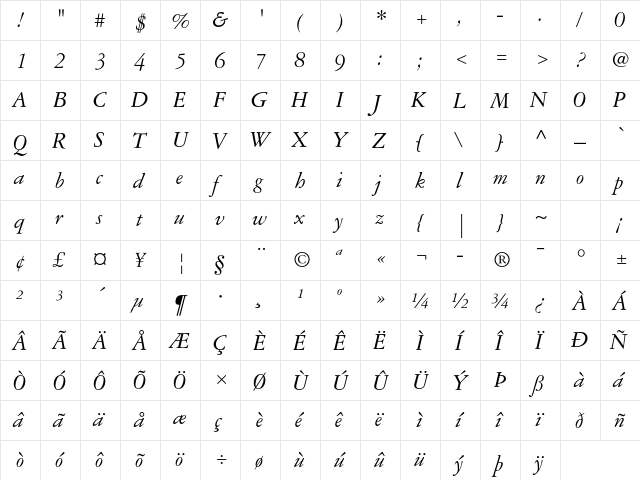
Garamond 3 LT Std Italic
| Designer | Morris Fuller Benton, Thomas Maitland Cleland |
Design Context for Garamond 3 LT Std Typeface
Garamond 3 LT Std is a composed and adaptable typeface that performs quietly and consistently across a wide range of design contexts. The dynamic lean of this cut emphasises speed and emphasis in any layout. Its slender proportions lend an understated elegance to any composition.
Pro Tip: Use Garamond 3 LT Std for emphasis, pull quotes, and subheadings where its slanted energy can add rhythm to the layout.